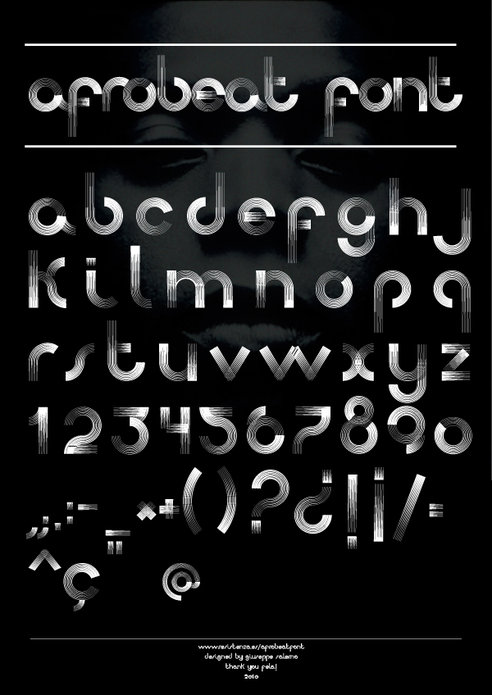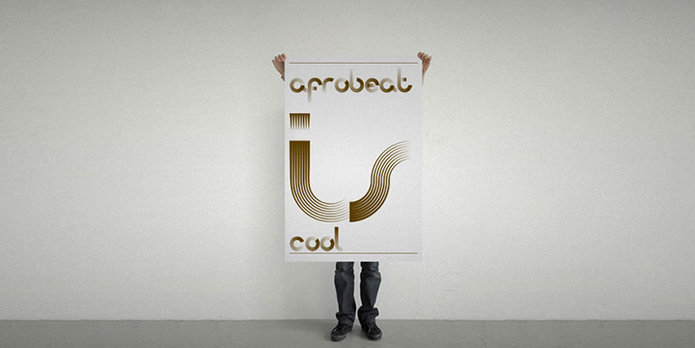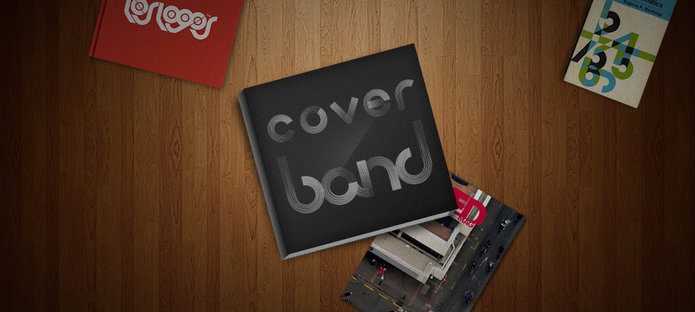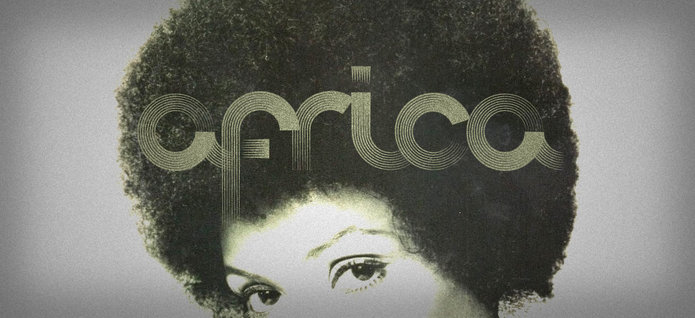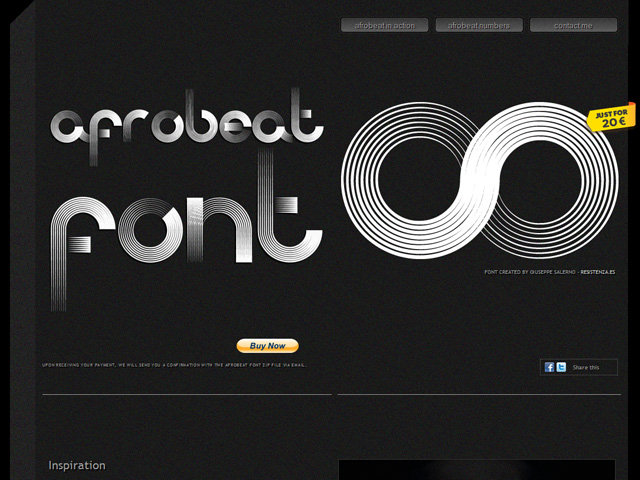
The pounding tribal rhythms of Afrobeat music is expressed through this psychedelic brand new font, Afrobeat. Every letter becomes art as every letter is elegantly placed side by side, like music notes, creating music for the eyes.
Afrobeat is a musical style performed by many African artists such as Fela Kuti, Femi Kuti, Antibalas and many more, which is a fusion of jazz,funk, and psychedelic rock, originating from the 60s and was based on the political movements of Nigeria.
This font is perfect for when you want to use eye-catching big texts for anything from posters and flyers for concerts, events, parties, to CD covers, advertisements, and art, but it´s especially striking for printed projects.